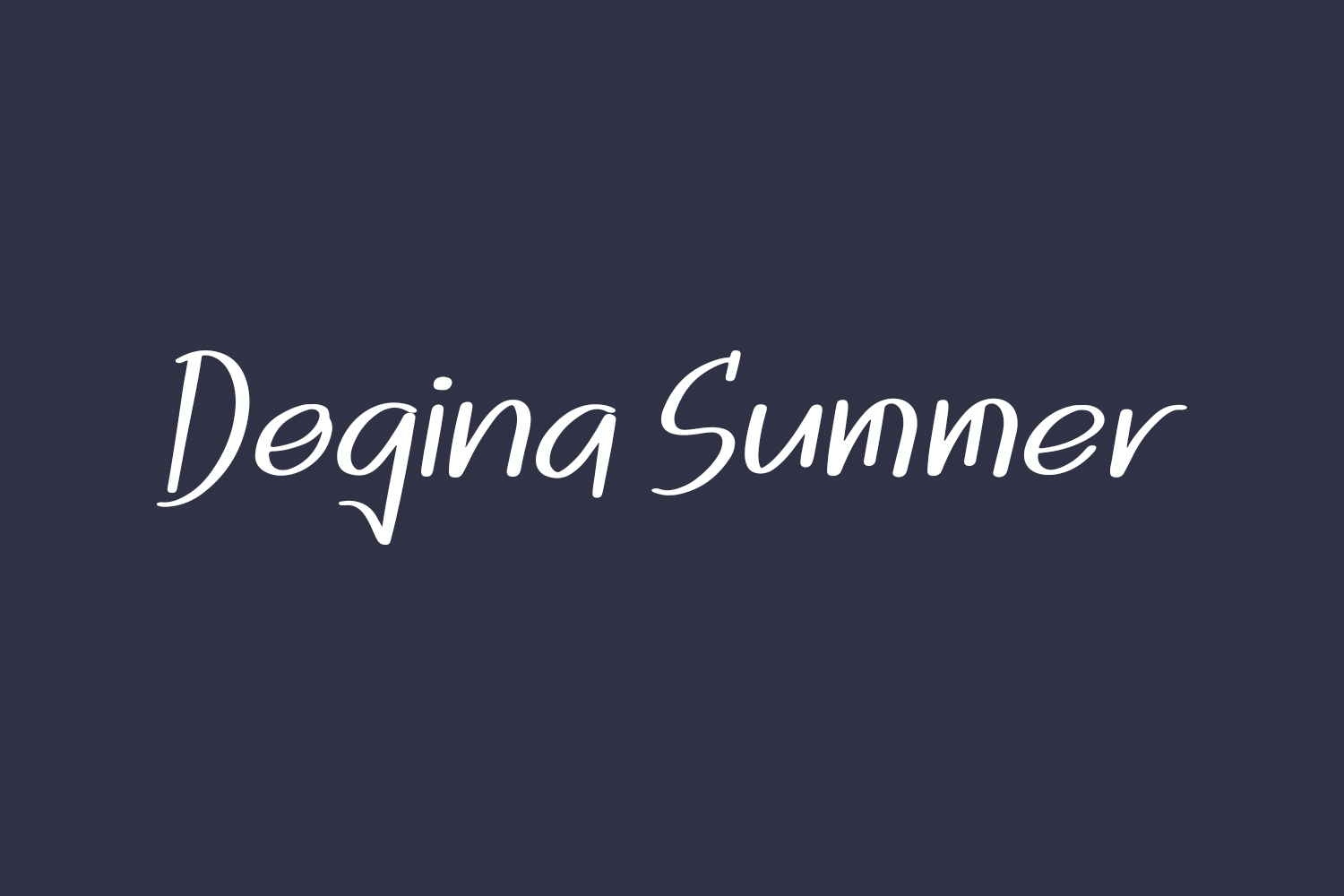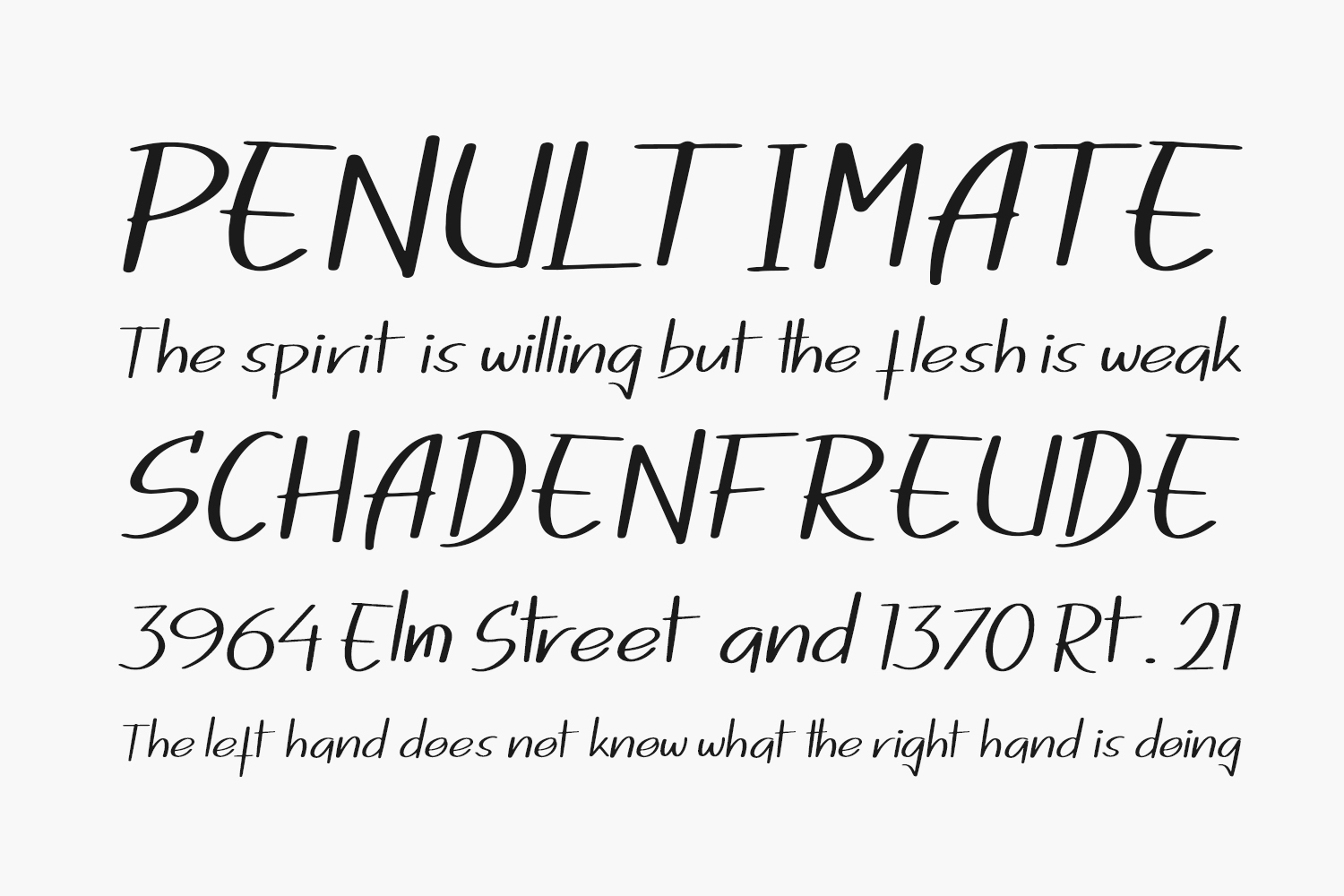
Dogina Summer Free Font is a simple, friendly and adaptable display font. Whether you use it for cartoon related designs, children games or just any creation that requires a lovely touch, this font will be an amazing choice. Dogina Summer Free Font is free for personal use only. Please purchase the full version for commercial use.